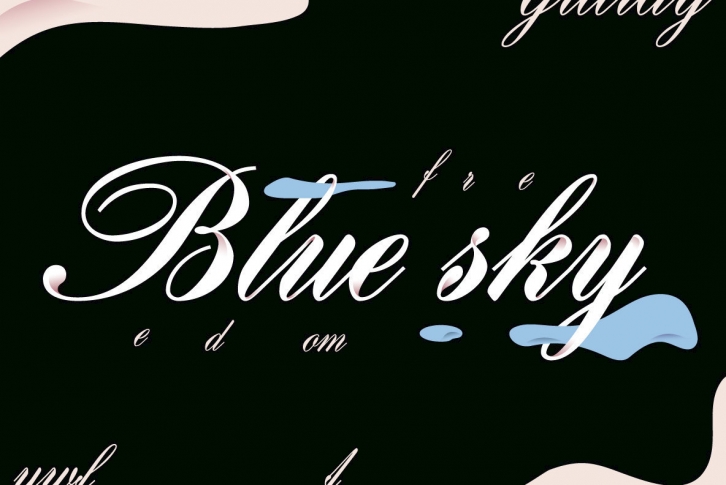
Based on H. Broedel’s Hogarth Script, Gillray Pro, an RMU design, comes with two weights- Light and Medium. These formal script fonts are ideal for invitations, diplomas,certificats, book titles etc.